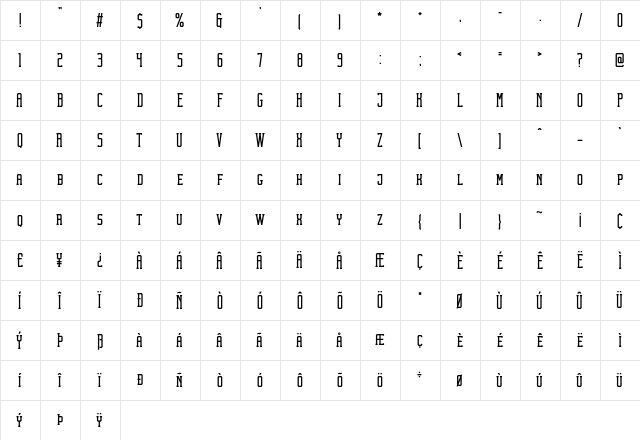
Theobald_Clean Regular
Design Context for Theobald_Clean Typeface
Theobald_Clean is a composed and adaptable typeface that performs quietly and consistently across a wide range of design contexts.